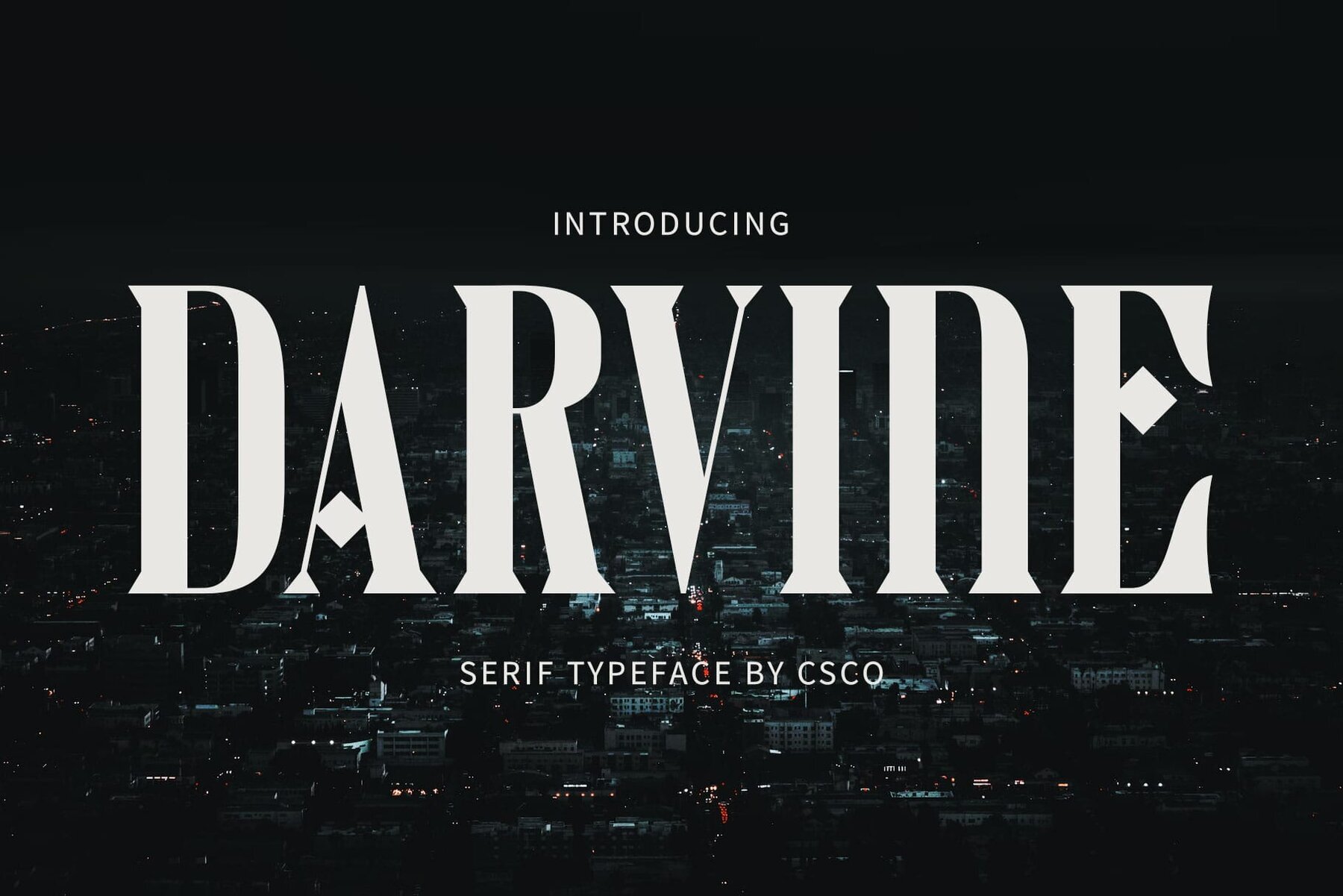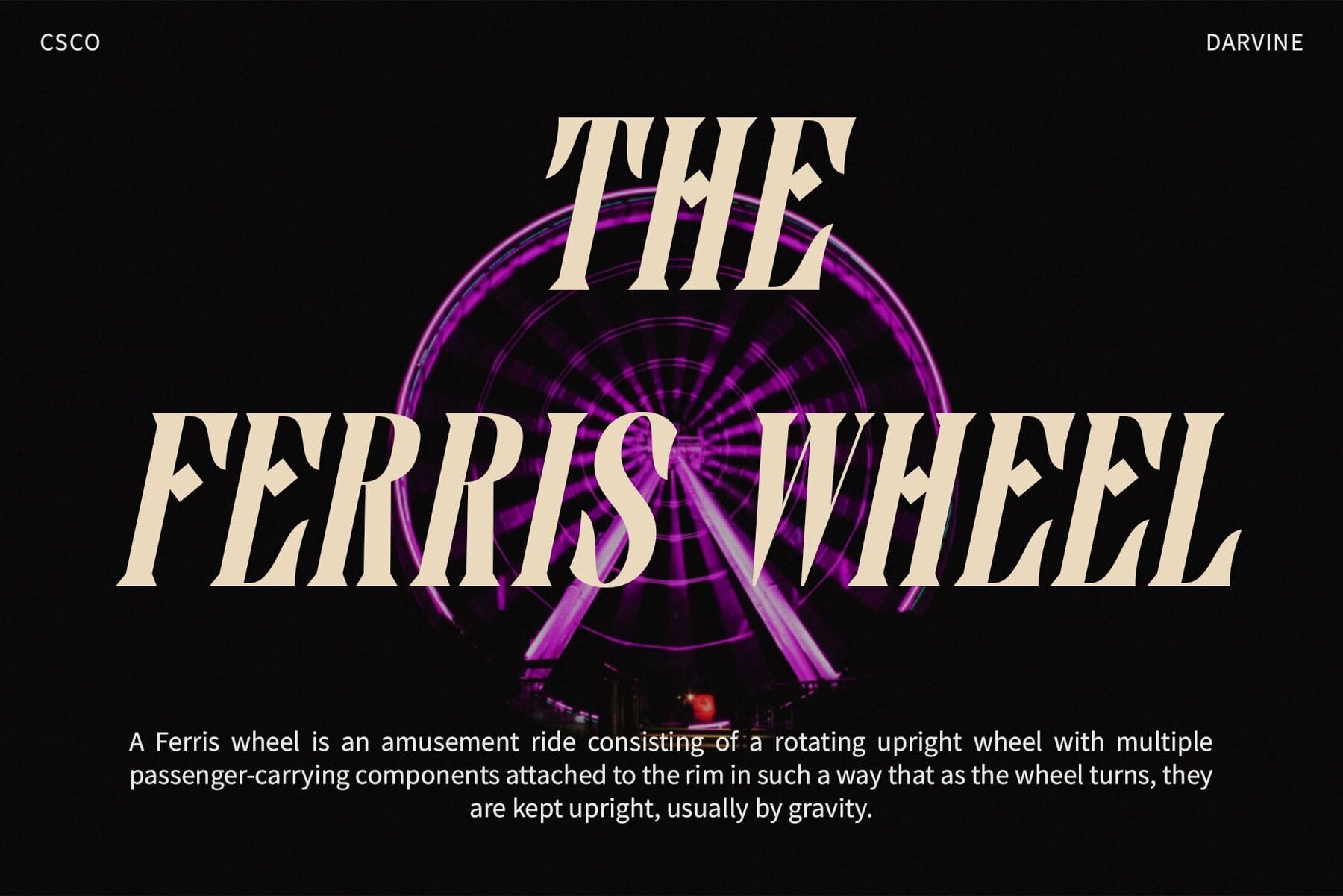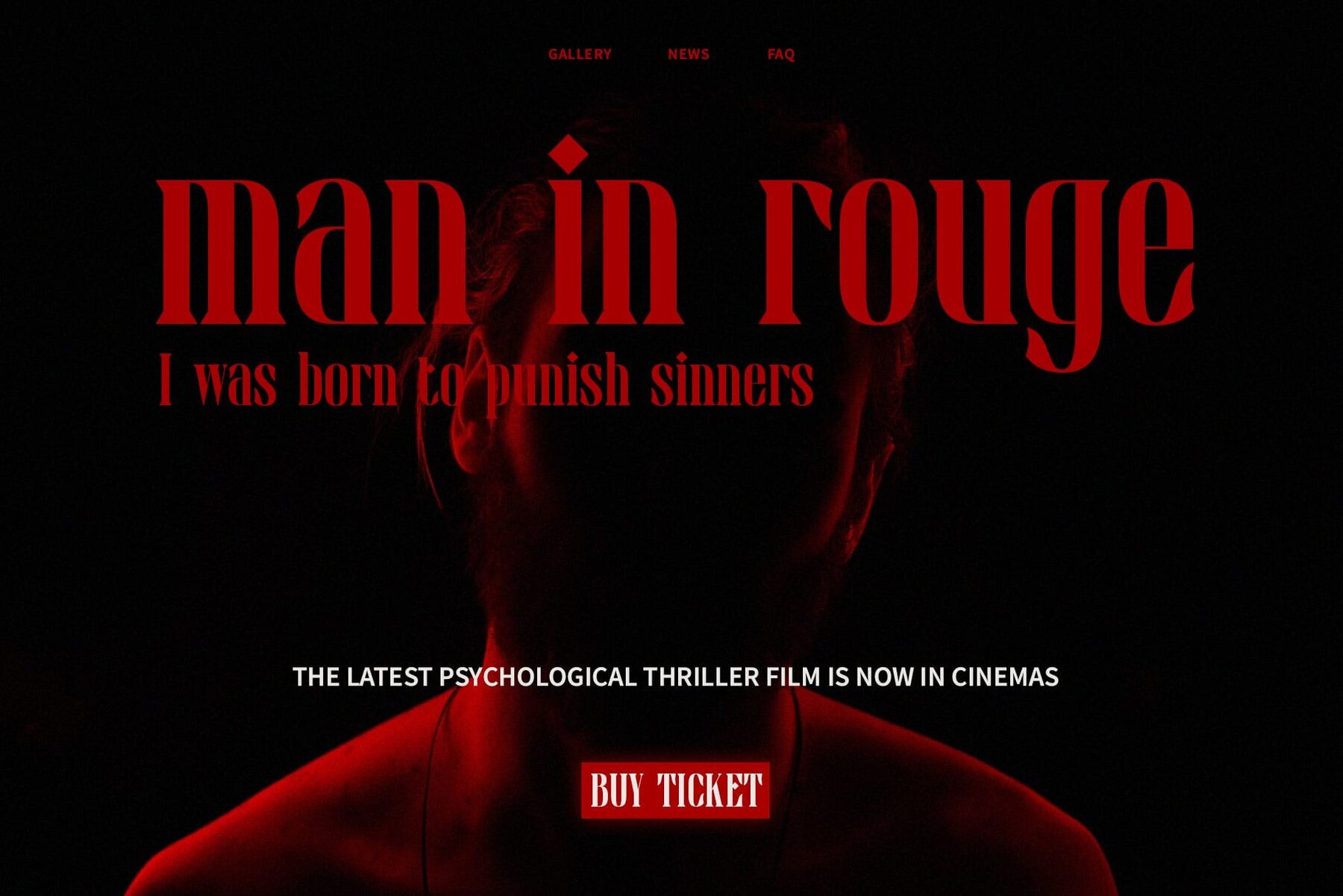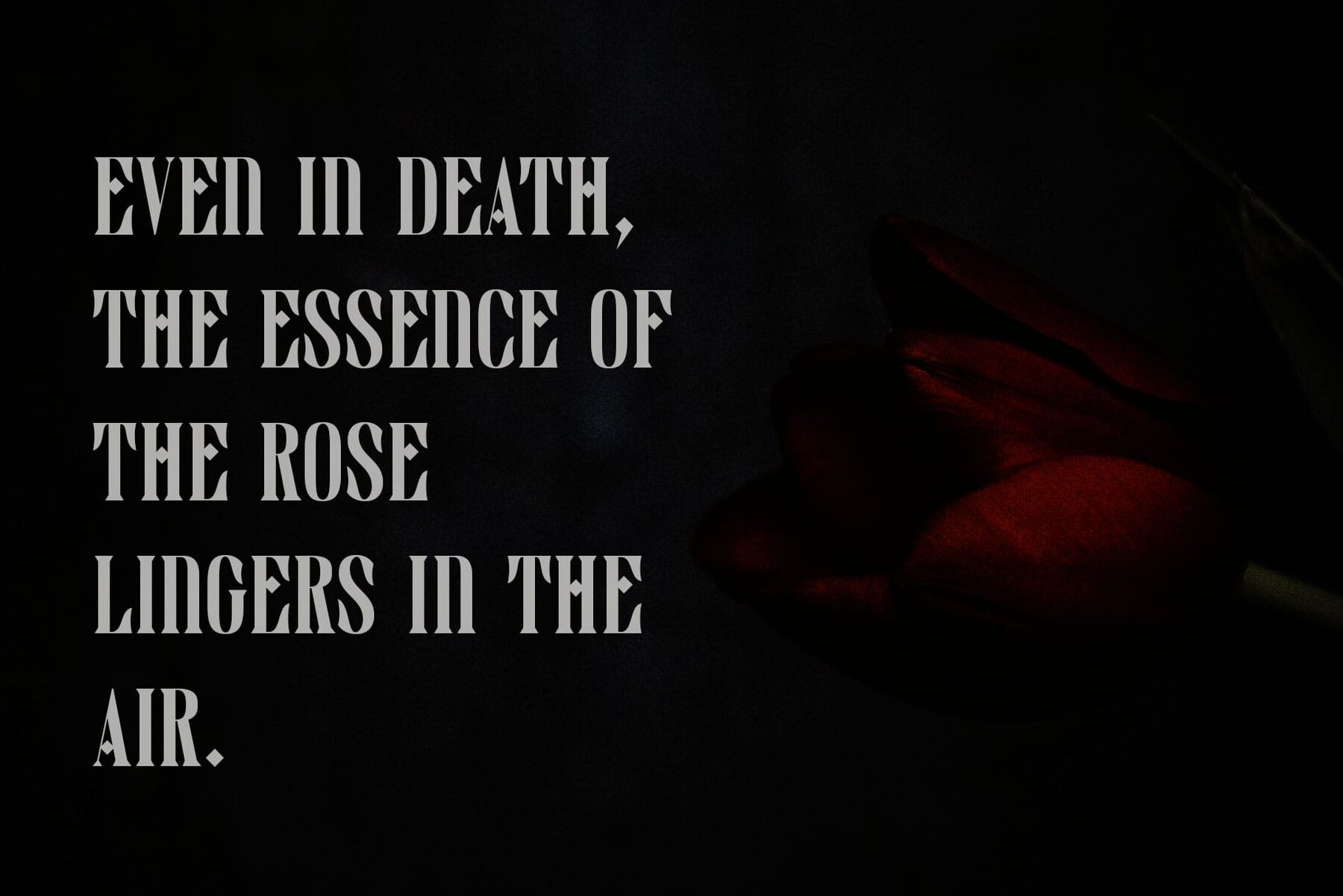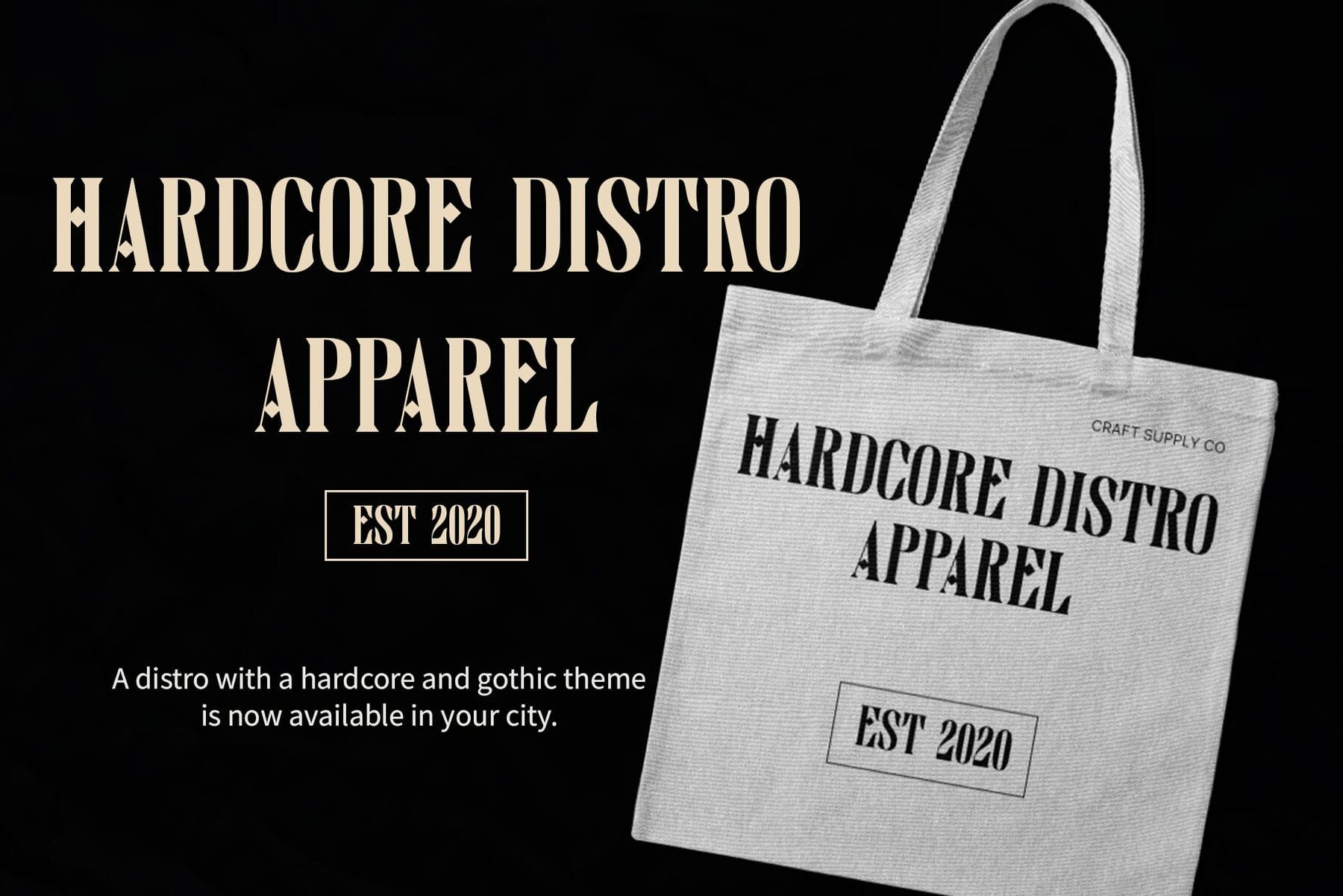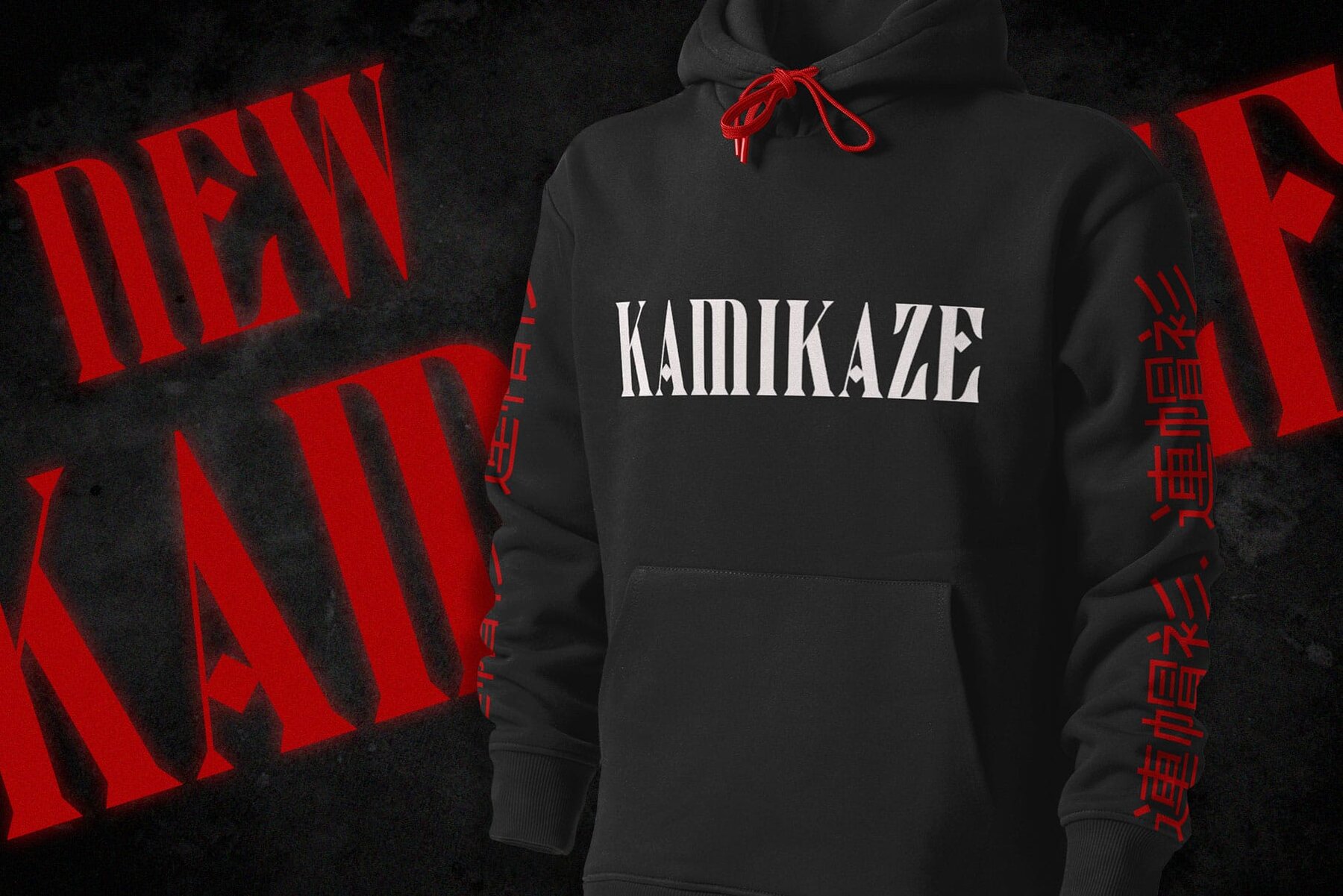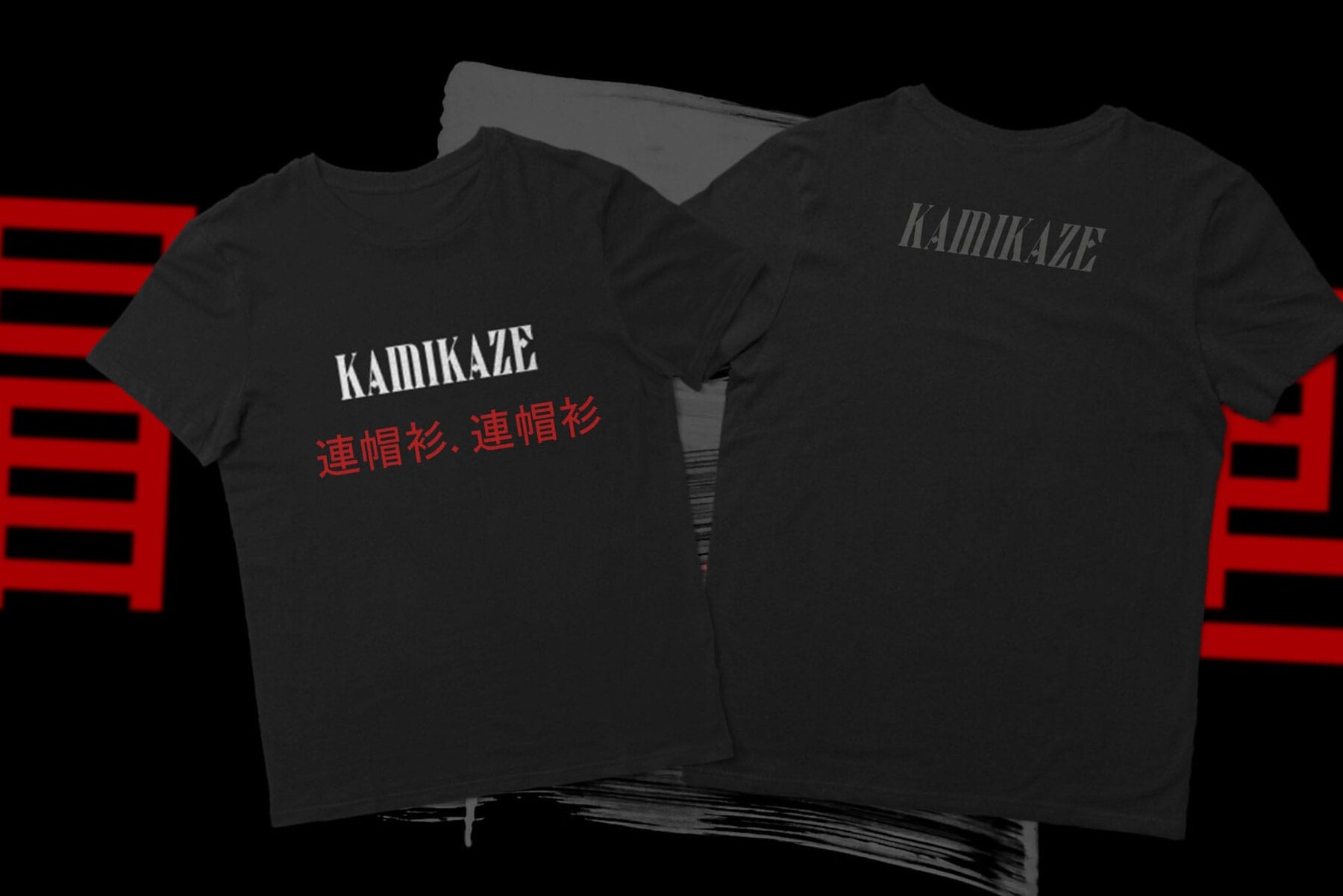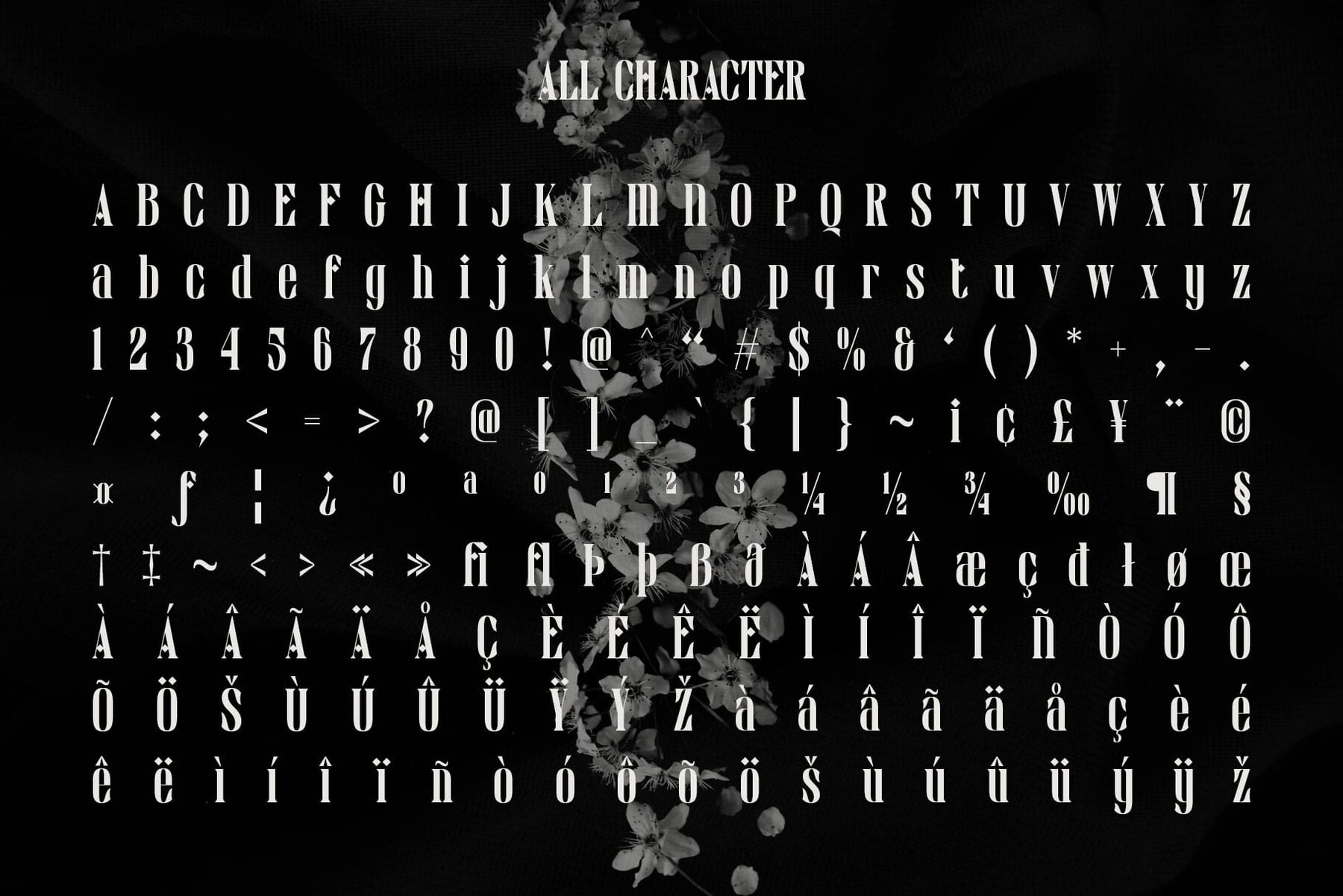
Darvine Font
Darvine is a tall serif typeface crafted with a sleek and contemporary design. Its modern aesthetic brings sophistication to any display project. Darvine is tailored for display purposes, making it perfect for headlines and branding. Its tall stature and refined lines make it ideal for grabbing attention while conveying elegance. Beyond its striking appearance, Darvine offers versatility across various applications. Whether in digital or print media, its contemporary serif style provides a sense of refinement and professionalism. Darvine is an essential addition to any designer’s toolkit. With its tall and contemporary serif design, it adds a modern flair to display typography, making it a perfect choice for projects that demand sophistication and style. This typeface can be used without specialized software. If you have any inquiries or need assistance, please feel free to contact us. We appreciate your support in enhancing your creative projects!Darvine Typeface: A Modern Serif for Display Use
Display Oriented Design
Versatile Usage
Must-Have Typeface